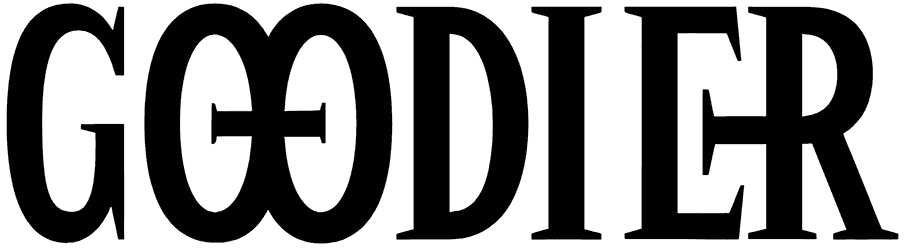
The Goodier Font
Using The Goodier, you’ll get to bring boldness and a classic style to your typography at once. As you can see, this ligature serif font has a pleasing style to bring to the table, while letting your words take advantage of its fancy looks.
The more you keep adding this serif font to your website headers for a jewelry online shop, leather shoes, handbags, or even catering lessons, the more you discover what it’s capable of, even with no lowercase.